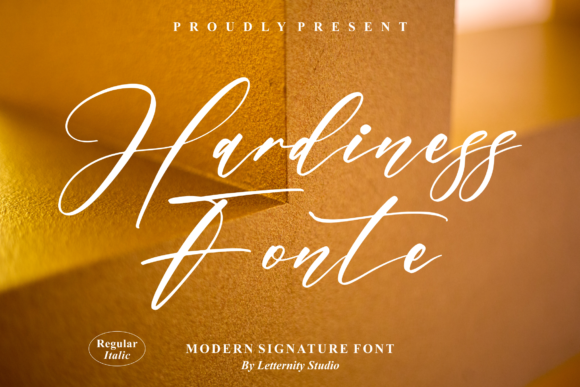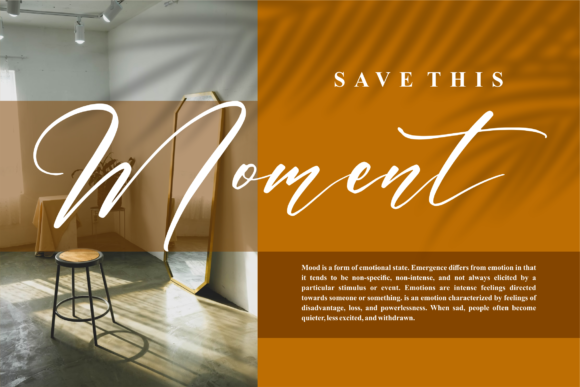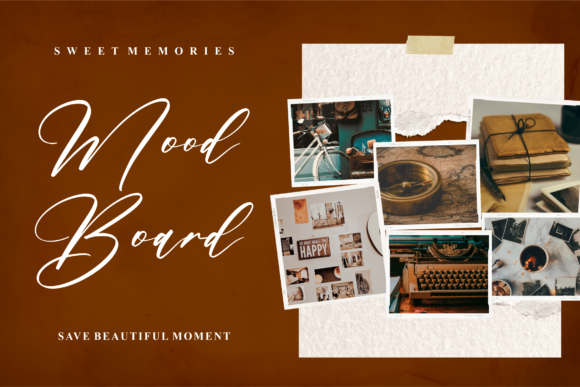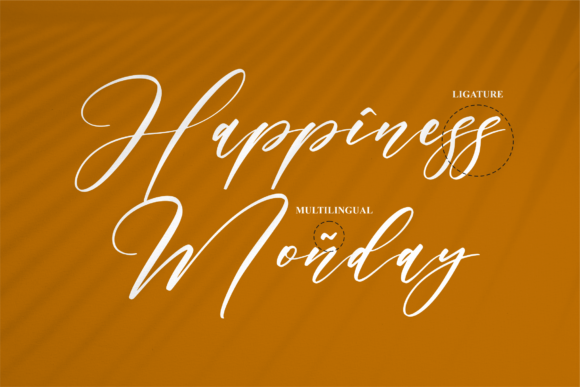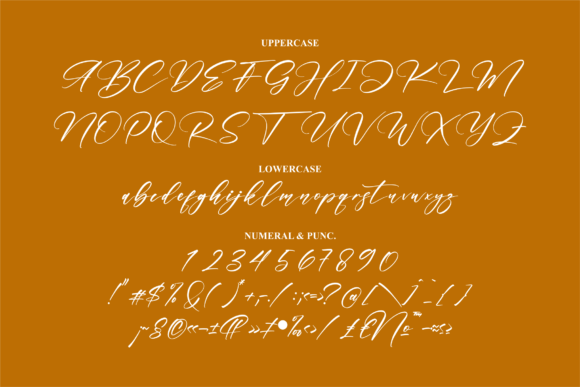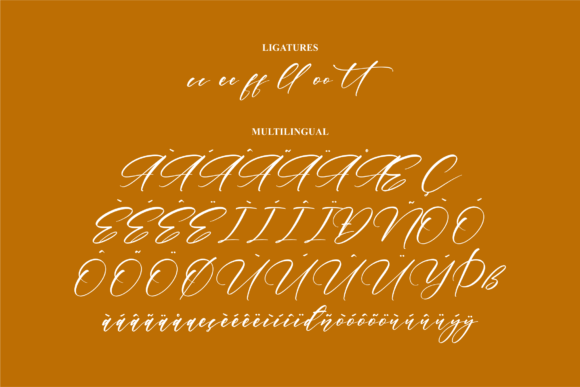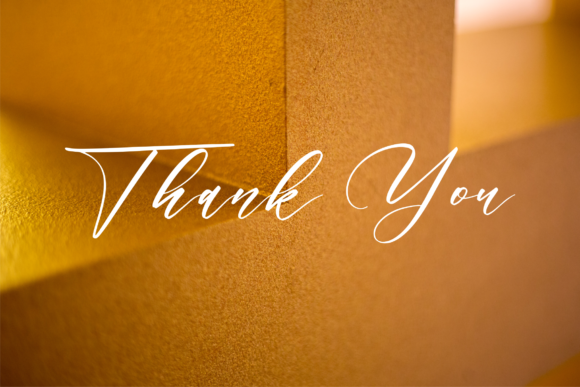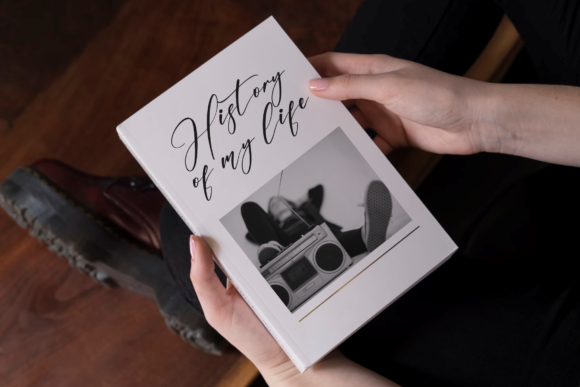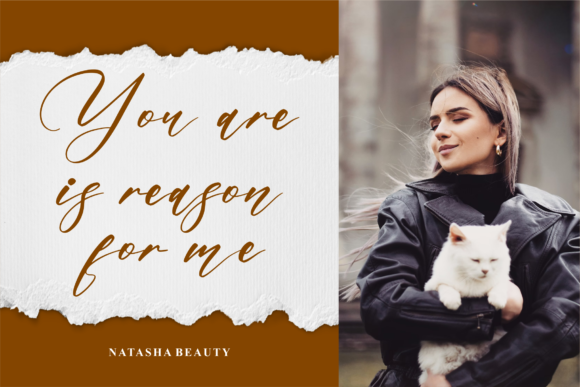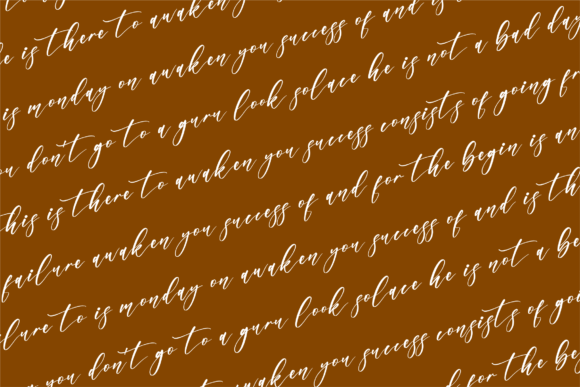
Hardiness Fonte Font
About Hardiness Fonte Font
Hardiness Fonte is a fashionable and delicate script font. It looks stunning on wedding invitations, thank you cards, quotes, greeting cards, logos, business cards and every other design which needs a handwritten touch.